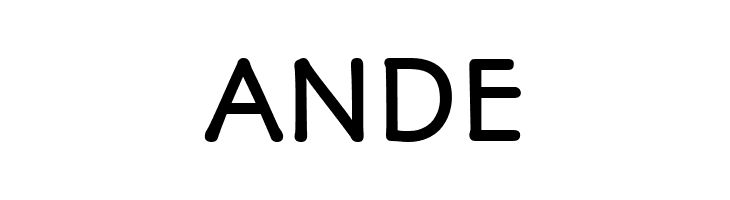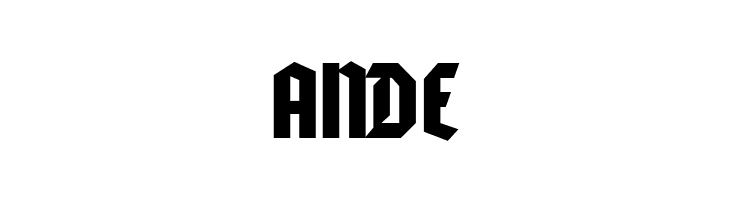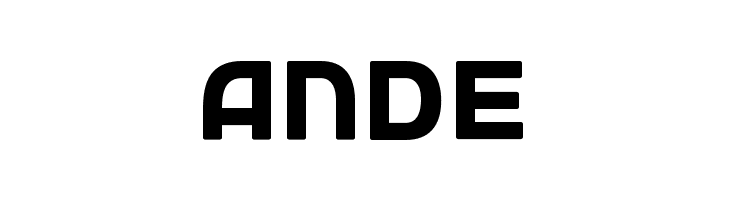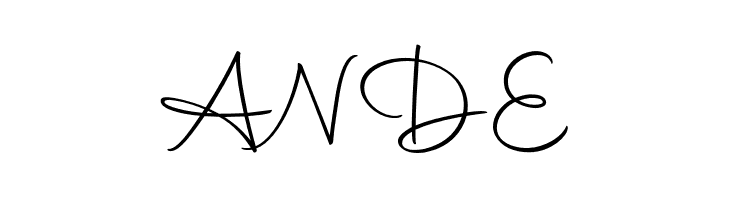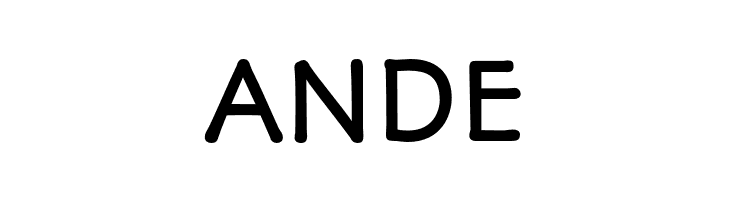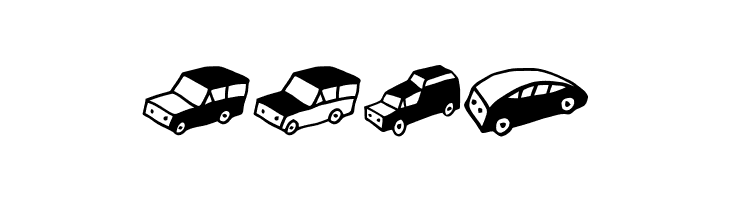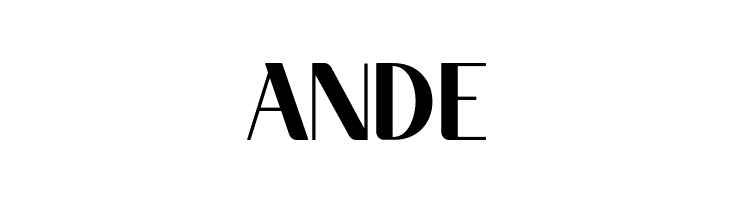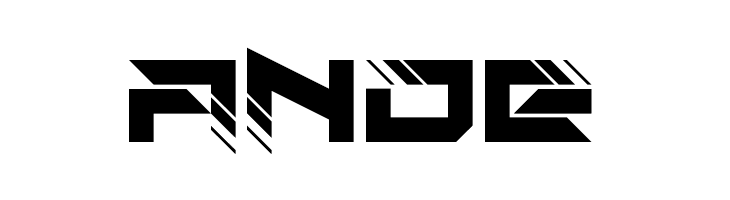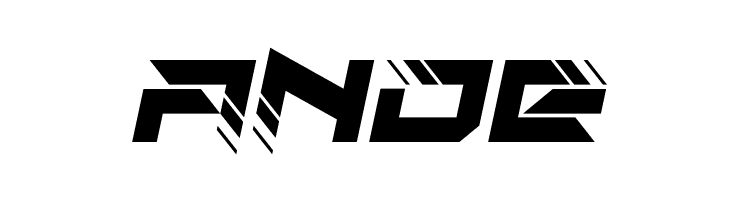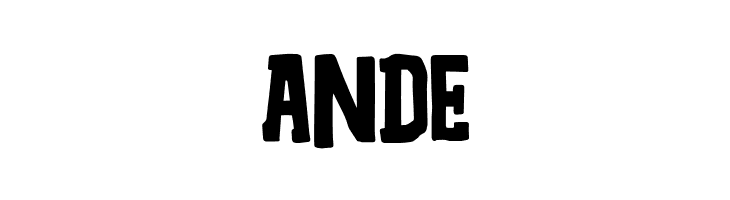
An elegant script font with flowing, cursive letters and high contrast strokes.
A decorative font inspired by automotive parts and accessories, featuring bold, blocky letters with intricate details.
A bold, futuristic font with angular, techno-inspired design.
A bold, futuristic font with angular shapes and a dynamic slant.
A bold, Gothic-inspired font with sharp angles and strong vertical lines.
A bold, geometric font with rounded edges and uniform width.
A bold, rounded, and geometric font with a modern appeal.
A bold, geometric sans-serif font with a modern and clean design.
A bold, angular font with a futuristic and geometric design.
A bold, angular font with a futuristic and dynamic design.
A bold, dynamic script font with flowing, handwritten strokes.
A bold, expressive handwritten font with dynamic, brush-like strokes.
A bold, expressive handwritten font with a brush-like texture.
A casual and elegant handwritten font with fluid, connected letterforms.
A bold, modern font with dynamic lines and rounded edges.
A dynamic, cursive script font with a handwritten, energetic style.
A futuristic, geometric font with bold, structured letterforms.
A bold, italicized font with a futuristic and angular design.
A decorative font with stylized car illustrations for each character.
A bold, dynamic script font with a handwritten style.
A fluid and elegant handwritten script font with seamless connections.
A bold, hand-drawn font with irregular strokes and a rugged aesthetic.
A bold, hand-drawn font with a rugged and organic style.
A playful, rounded font with smooth curves and a friendly appearance.